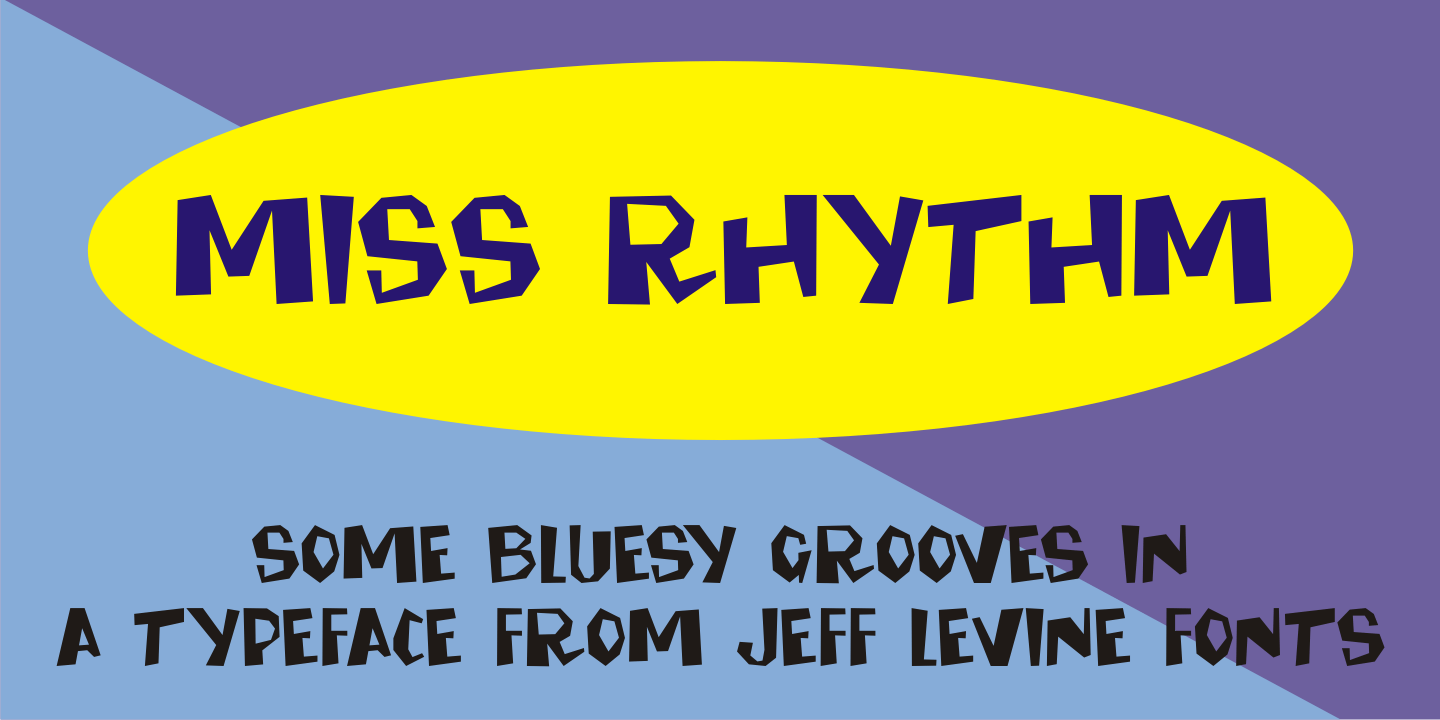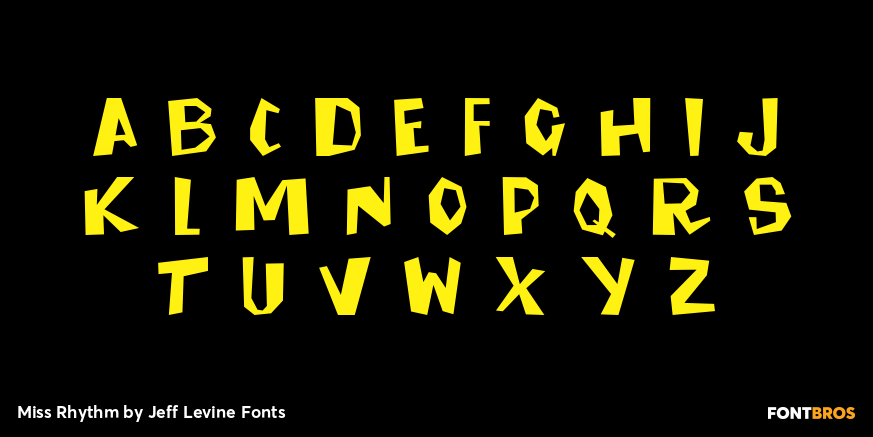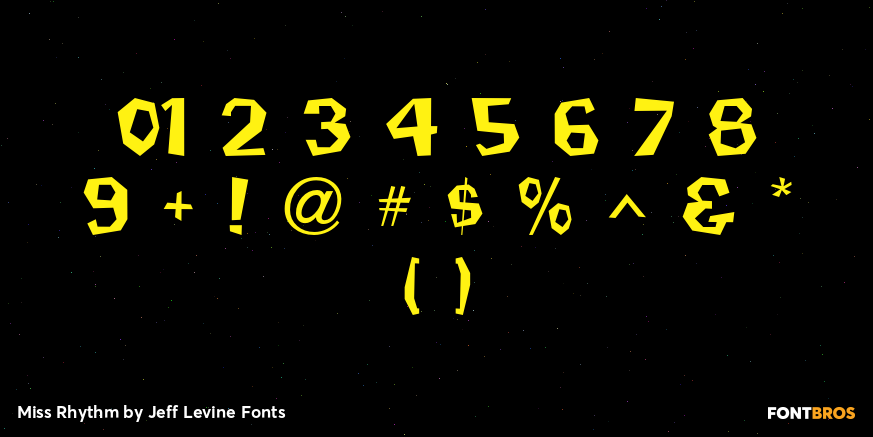
Miss Rhythm
An early 1960s hand-lettered trade publication ad for an upcoming single 45 rpm release inspired the type design of Miss Rhythm JNL.
The nickname of "Miss Rhythm" was given to Ruth Brown because of her popular "jump tunes"; that is rhythm and blues with an uptempo beat.
Because the trade ad for her record was the inspiration for the font, it was only fitting to use that nickname as the font's name in honor of her.